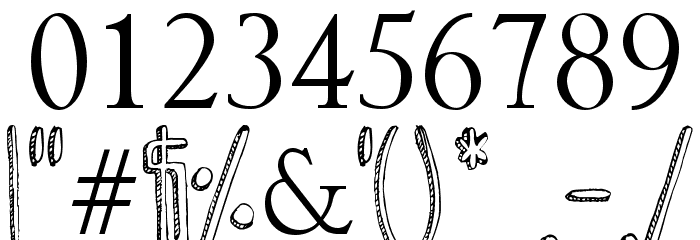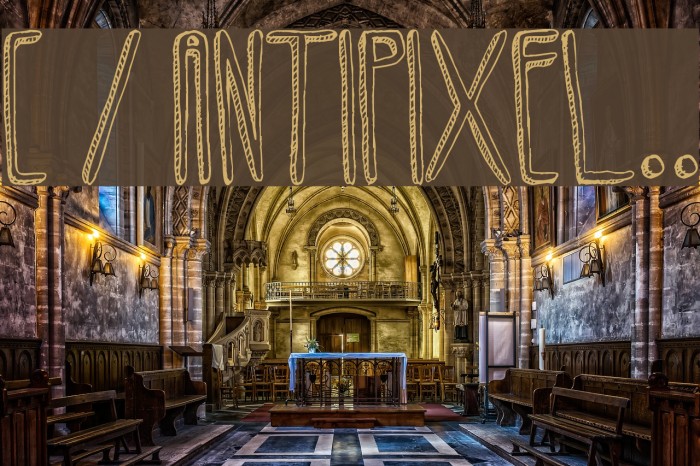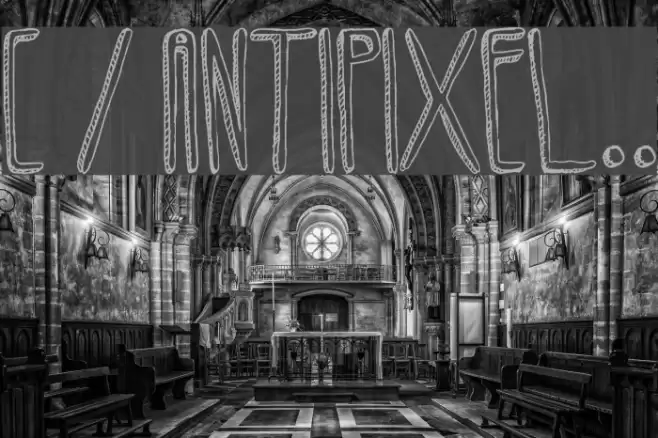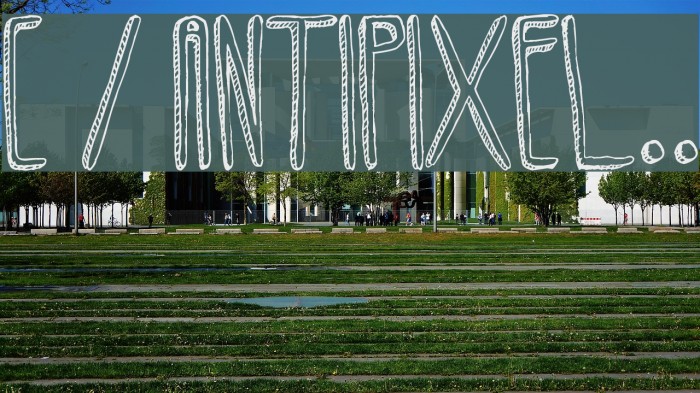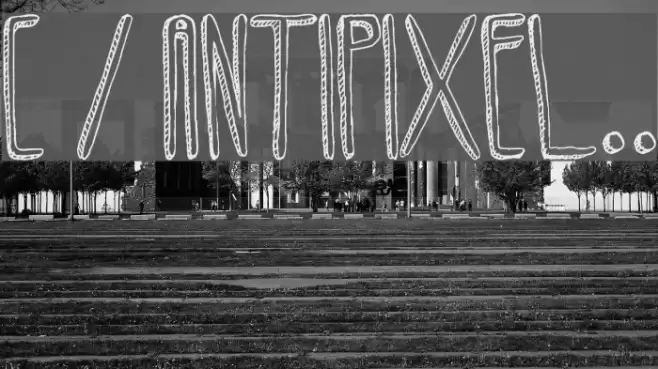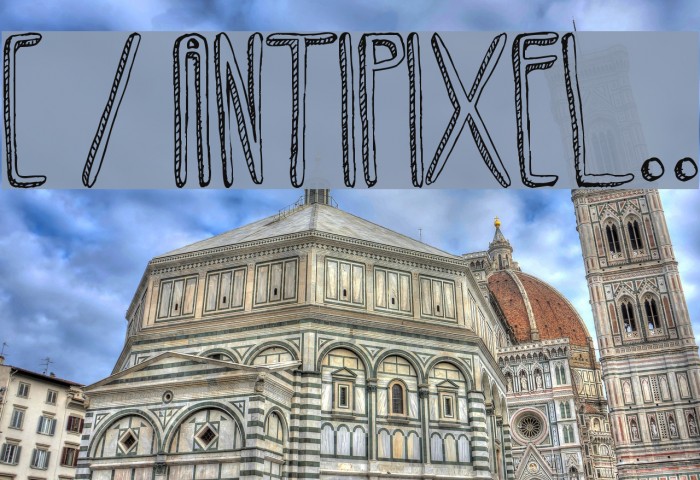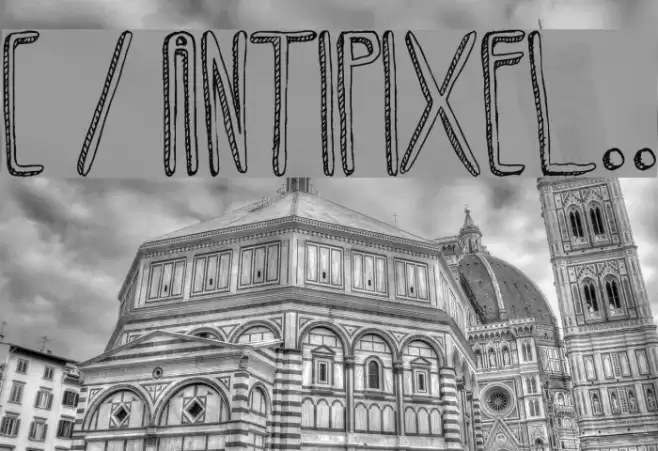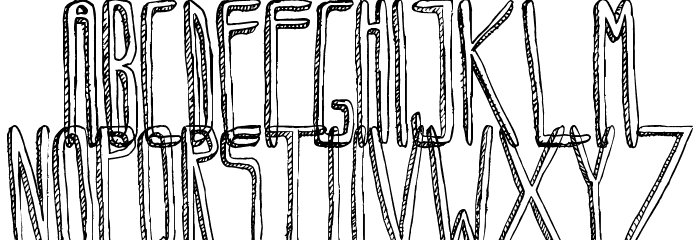
Circoex / ANTIPIXEL.com.ar Font
| Gesamtstil | Artistic, Playful |
| Anwendungsfall | Headlines, Logos, Creative projects |
| Vorgeschlagene Projekte | Ideal for creative projects such as posters, invitations, and branding that require a unique and artistic touch. |